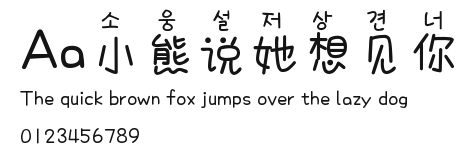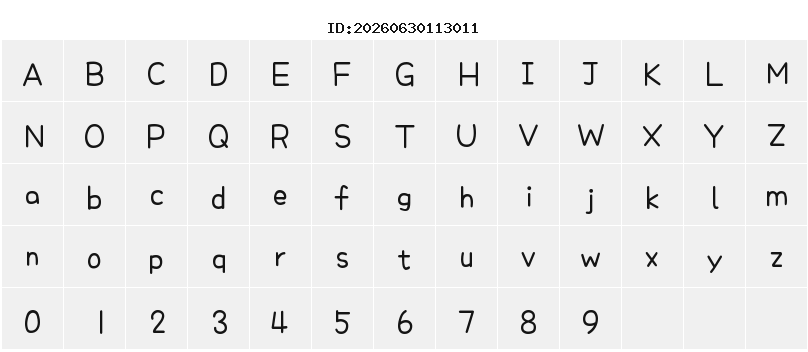
Aa小熊说她想见你 Preview
• Font Name: Aa小熊说她想见你
• Font Style: 常规
• Font ID: 1.000;Aa;AaXXSTXJN;2021
• Full Font Name: Aa小熊说她想见你
• PostScript Name: AaXXSTXJN
• Character Count: 19081
• Designer: Aa
• Manufacturer: 翰美互通(厦门)科技有限公司
• Description: AaXXSTXJN is a fantastic font with excellent features designed for user interfaces and electronic communications.
About Aa小熊说她想见你.ttf
Aa小熊说她想见你.ttf is a modern, elegant sans-serif font designed for ultimate readability and visual harmony. Perfect for branding, headlines, web design, and print materials.